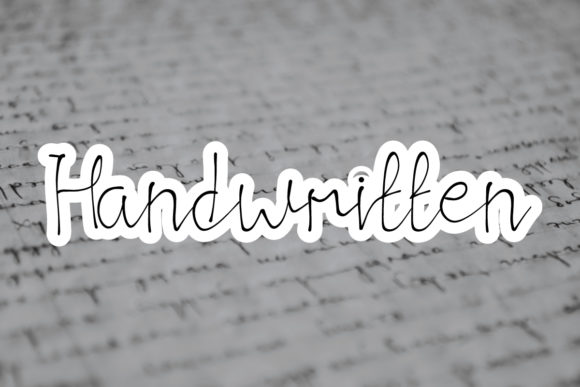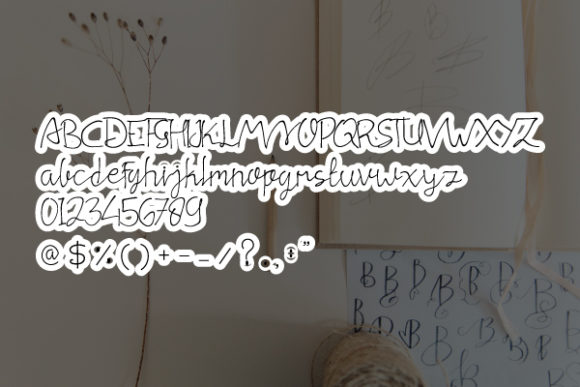
Introducing Handwritten: The Simple and Cute Handwritten Font
Step into the world of innocence and charm with Handwritten, a font that exudes simplicity and cuteness in its handwritten style. Resembling the handwriting of a child, Handwritten is the perfect choice for writing letters to Santa or adding a touch of innocence to your creative creations. Embrace the sweet charm of Handwritten as you bring a sense of playfulness and wonder to your projects.
Handwritten’s simple and cute appeal brings a sense of childlike wonder and charm to your designs. Its handwritten letterforms flow with a seamless innocence, making your text feel like it was penned by a young heart.
As a font that resembles a child’s handwriting, Handwritten becomes the ideal choice for writing letters to Santa or any project that requires a touch of playful innocence. It adds a whimsical flair that tugs at the heartstrings.
Embrace the cuteness of Handwritten as you embark on your creative journey. Let it be the font that enhances your work, creating a sense of joy and charm in every project.
As you explore the possibilities of Handwritten, you’ll find it to be a font that transforms your designs with ease. Its simple and cute handwritten beauty elevates your work, ensuring that your creations leave a heartwarming impression.
So, let Handwritten be the font that captures the innocence of childhood. Embrace its simple and cute charm, and watch as your letters to Santa and other creations come to life with a touch of playfulness and wonder. With Handwritten as your go-to font, your designs will resonate with sweetness and joy, captivating your audience and leaving a lasting impression. Embrace the cuteness of Handwritten and create designs that are truly delightful and unforgettable!